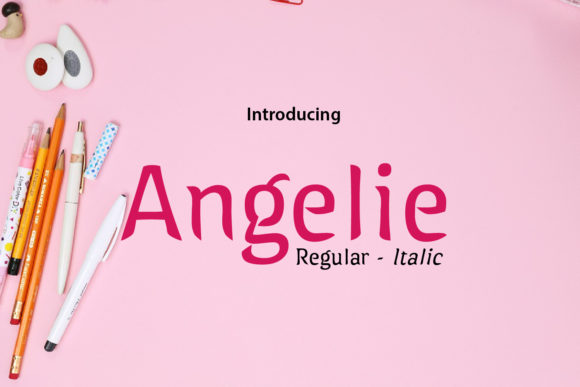
The Quest for the Perfect Font: Discovering Angelie
I still remember the frustration of working on a project, hours spent crafting the perfect design, only to realize that the font I was using just wasn’t cutting it. The client had specific requests, and I was determined to deliver. But, as I scrolled through font after font, I just couldn’t find the one that fit the bill. That was until I stumbled upon Angelie – an elegant and neat serif font that has since become a staple in my design toolkit.
An Honest Review of Angelie
- ✨ Elegant and sophisticated design that’s perfect for a wide range of projects
- ✅ Highly versatile and can be used for both digital and print projects
- 💡 Excellent for body text, making it easy to read and understand
- 🎨 Beautifully crafted to add a touch of class and sophistication to any design
While Angelie is an excellent font, there are a few things to keep in mind:
- 🤔 Some users may find the font a bit too formal for certain projects
- ⚠️ Limited availability of certain OpenType features, which may be a drawback for some users
The Story Behind Angelie
Angelie was designed with the goal of creating a font that was both elegant and versatile. The designer, inspired by classic serif fonts, set out to create a font that would be perfect for a wide range of projects, from digital designs to print materials. With its beautiful lines and sophisticated feel, Angelie has quickly become a favorite among designers and crafters.
Q: What type of projects is Angelie best suited for?
A: Angelie is a versatile font that can be used for a wide range of projects, including digital designs, print materials, and more.
Q: Is Angelie a difficult font to read?
A: No, Angelie is a clear and readable font that is perfect for body text and other long-form content.